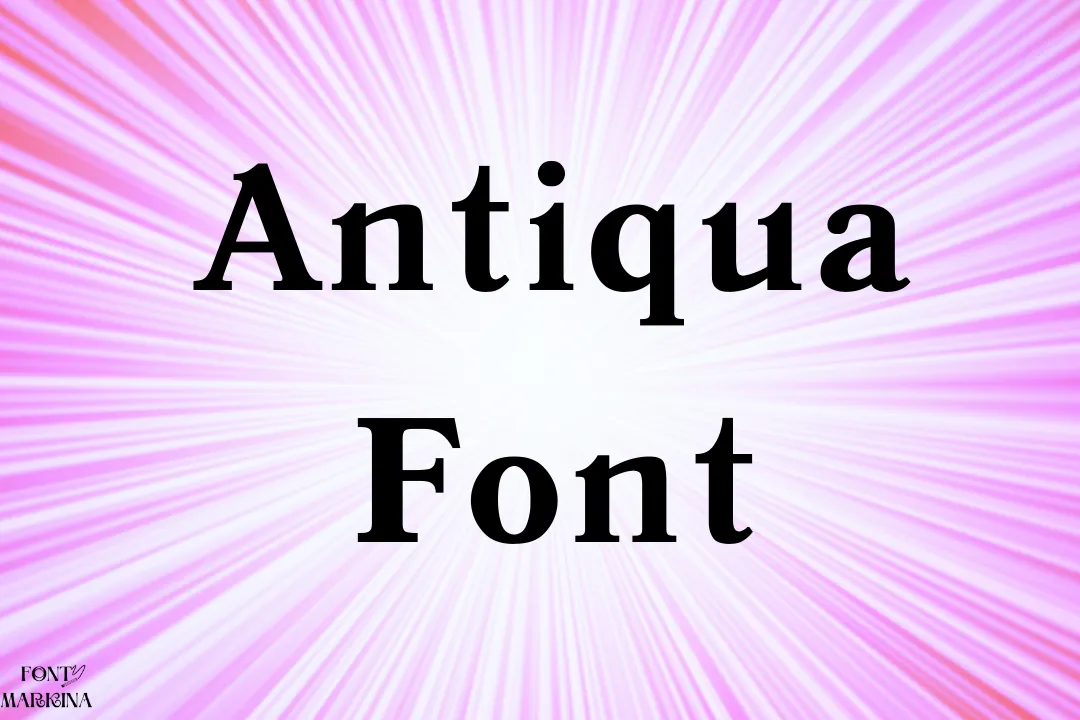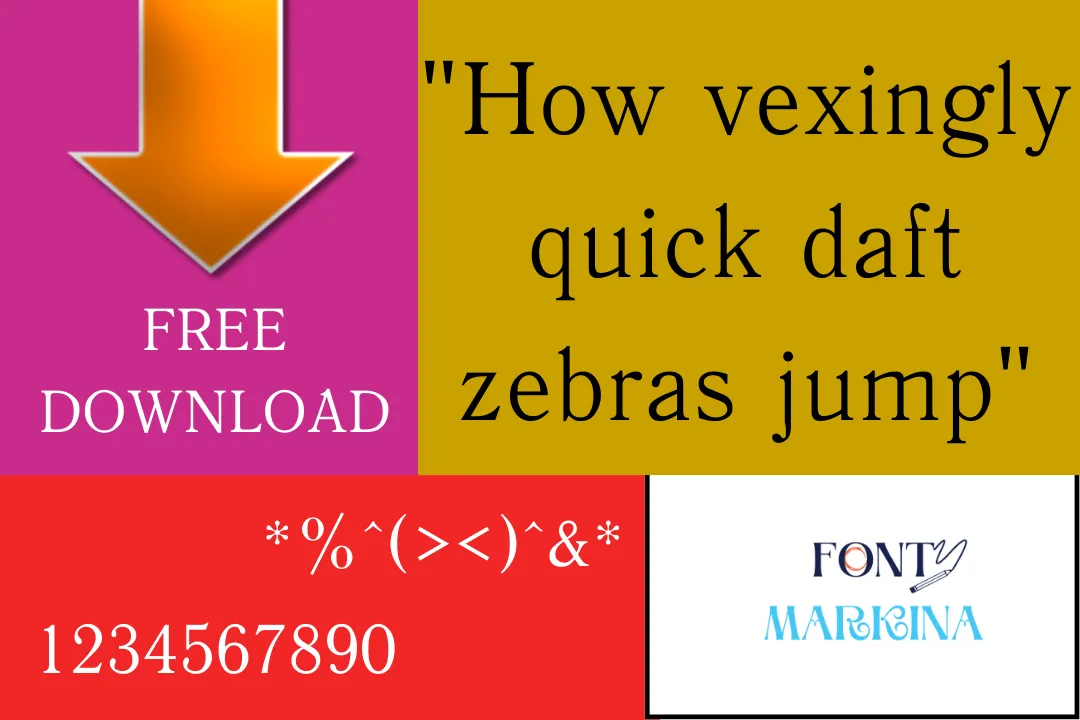
Antiqua Font
Antiqua Font is one of the wonderful and marvelous texture that lies in the serif typeface family. The typeface was designed by a popular foundry that goes under the name Monotype Type Drawing Office.
This awesome family was designed after very hard work in 1600AD. With its more attractive and classic styles, it supports almost all different languages all over the world. You can also pick out its similar font which is Mrs Eaves Font has the same look and styles.
Who Can Use Antiqua Font
This typeface is used in many locations and places because of its wide support of multiple languages. All web designers always remain in search of such a type of texture for their web design projects.
Moreover, in your daily routine tasks like homeware designs, posters, certificates, covers, and much more can be easily done by using this family. For creating art channels and video editing this family is very beneficial.
Who designed Antiqua Font?
This famous and good-looking typeface was created by Monotype foundry which is a brilliant type foundry.
What is the closest font to Antiqua Font?
It has many similar fonts that are best for pairing with it such as Antenna font and Bembo Std font.
Is Antiqua a good font?
What type of lettering is Antiqua?
The type of lettering of this font is serif and it comes in five amazing styles. Due to its unique letters, this font is so popular in the design market.